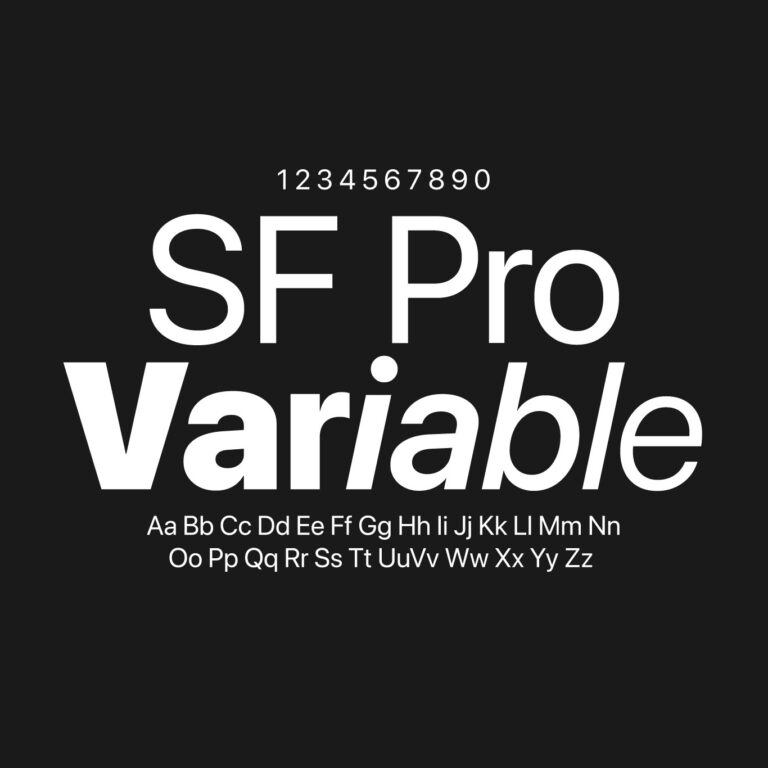
The Roman package contains the upright version of SF Pro Variable. Use it for body text, interface labels, navigation, headings, presentations and layouts that require regular non-italic typography.
The Italic package contains the matching slanted version of the variable family. It is intended for emphasis, quotations, captions, secondary text and typographic combinations with the Roman version.
Full Name: San Francisco Pro
Variable Axes: Weight and Optical Size
Weight Range: Ultralight to Black
Language Support: More than 150 languages across Latin, Greek and Cyrillic scripts
Developer: Apple
What Is an SF Pro Variable Font?
A variable font stores a range of typographic variations inside one font file. Instead of installing separate Light, Regular, Medium, Semibold, Bold and Heavy files, compatible applications can select intermediate weights from the same variable font. This provides more precise control over text while keeping the number of installed files smaller.
SF Pro Variable also supports the responsive typographic behaviour associated with Apple’s system typography. In compatible software, the design can adapt more smoothly across different weights and text sizes, helping smaller interface text remain clear while larger headings retain stronger proportions.
Roman vs Italic
The Roman and Italic downloads are two coordinated parts of the same family. Roman contains the standard upright letterforms used for most text, while Italic introduces purpose-drawn slanted forms for emphasis. Install both packages when a document or interface needs a complete typographic hierarchy with consistent upright and italic styling.
Best Uses for SF Pro Variable
SF Pro Variable is especially useful for interface mockups, Apple-platform design concepts, mobile app presentations, dashboards, websites, product prototypes and responsive typography systems. The adjustable weight range makes it possible to create subtle hierarchy between labels, paragraphs, buttons and headings without switching between numerous individual font files